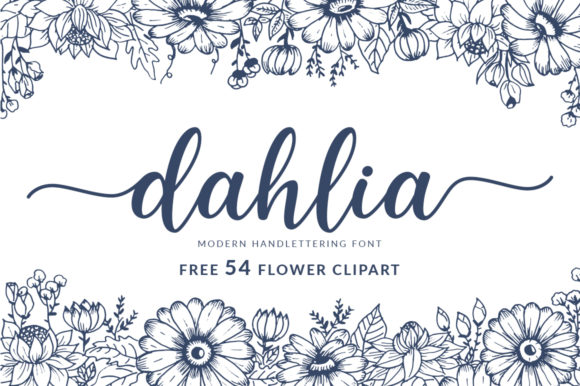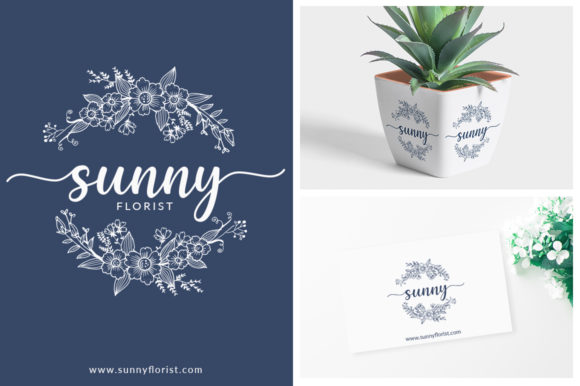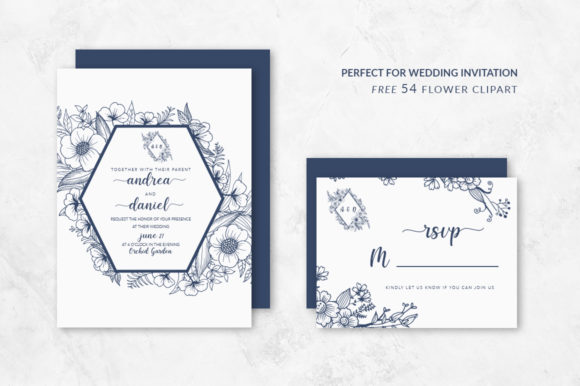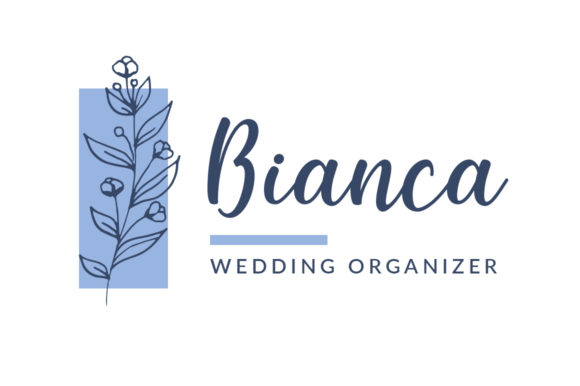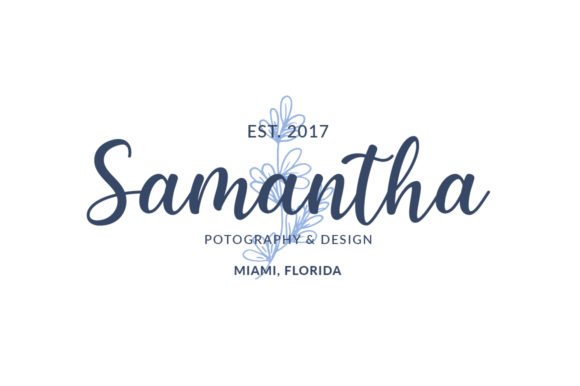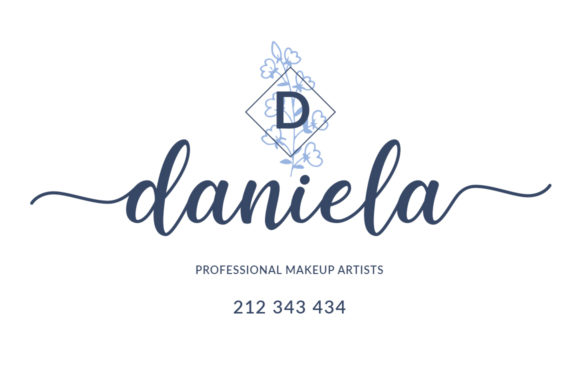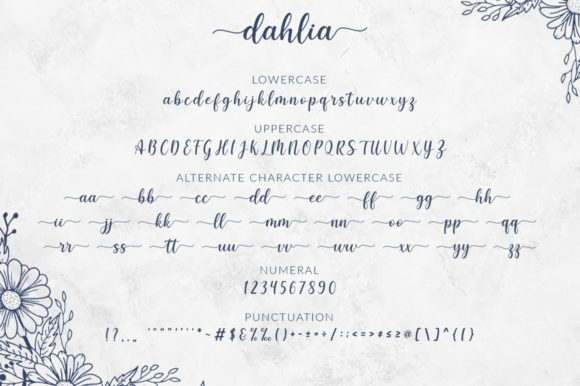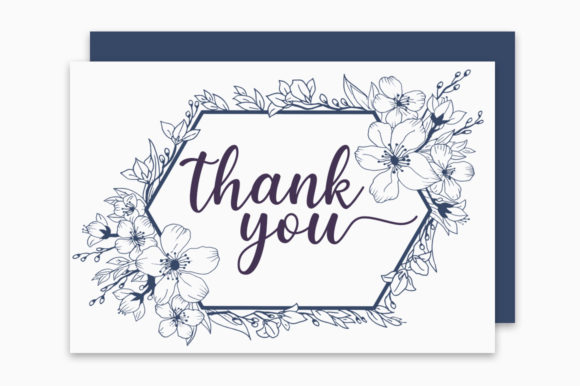
Dahlia Font
About Dahlia Font
Dahlia is a sweet, soft hand-lettered handwritten font. The playful rounded characters make it the perfect font for creating stunning art.